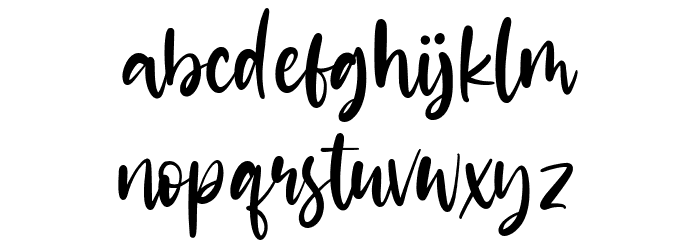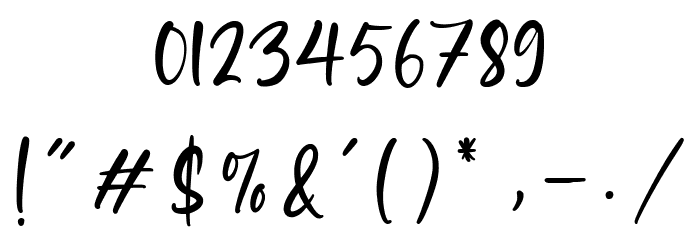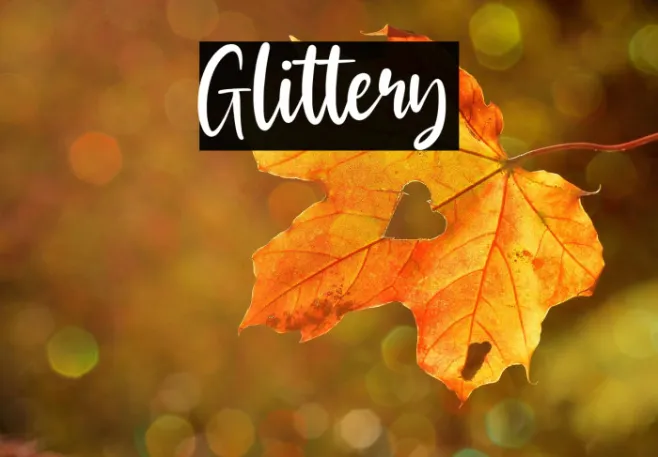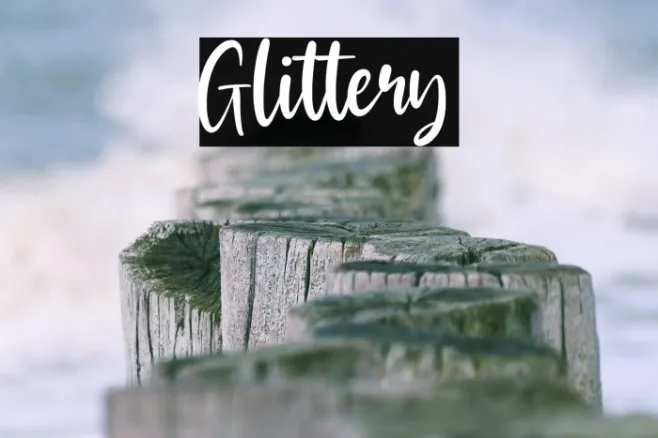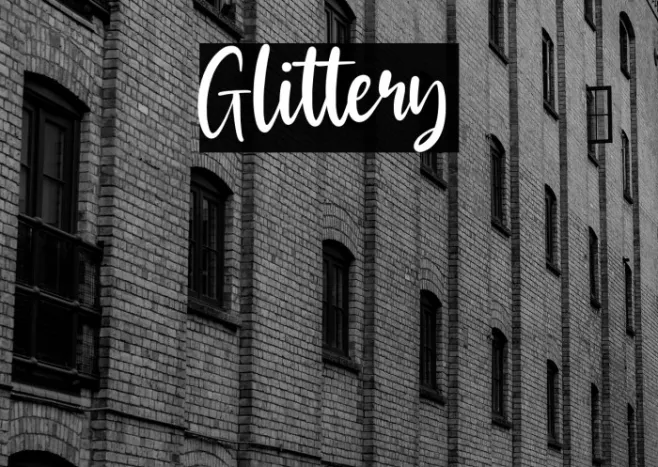
Glittery Font
This font features a playful and energetic script style, characterized by its fluid and dynamic strokes. The uppercase letters are bold and slightly slanted, giving a sense of movement and flair. The lowercase letters maintain a consistent flow, with some characters featuring unique loops and curls that add to the overall whimsical appearance. Numbers and special characters are designed to complement the alphabet, maintaining the same lively and informal style. This font is perfect for projects that require a touch of personality and creativity.
A playful and energetic script font with fluid, dynamic strokes.
- Proposed Projects: Ideal for greeting cards, invitations, branding, social media graphics, and any project needing a personal touch.
- Use Case: Logos, Headlines, Invitations